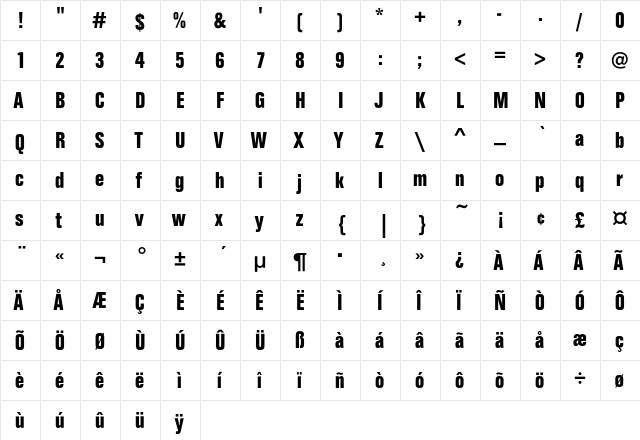
FolioEF-BoldCondensed Regular
Design Context for FolioEF-BoldCondensed Typeface
FolioEF-BoldCondensed is a composed and adaptable typeface that performs quietly and consistently across a wide range of design contexts. The heavy weight commands attention and anchors typographic hierarchies. The condensed width makes it efficient for tight spaces without sacrificing legibility.
Pro Tip: Use FolioEF-BoldCondensed in both headline and body roles to test its range before committing to a single application.